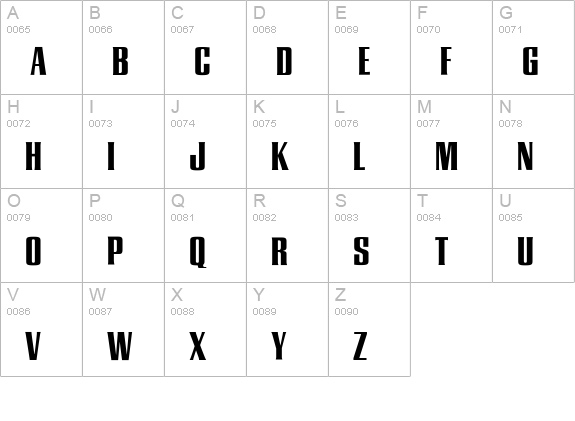
CgEuropaBd Font Details
CgEuropaBd is a modern and stylish font that exudes sophistication and elegance. With its clean lines and sleek design, this typeface is perfect for a wide range of design projects, from logos to websites to print materials. The bold weight of CgEuropaBd makes it stand out and command attention, while still maintaining a sense of professionalism. What makes CgEuropaBd even more appealing is that it is completely free to download! You can easily access this beautiful font at FontsMarket.com, where you can quickly and conveniently add it to your font library. Whether you're a designer looking for a fresh new typeface or a business owner in need of a distinctive font for your branding, CgEuropaBd is sure to impress. Don't miss out on the opportunity to enhance your projects with this stunning and versatile font, available for free at FontsMarket.com.